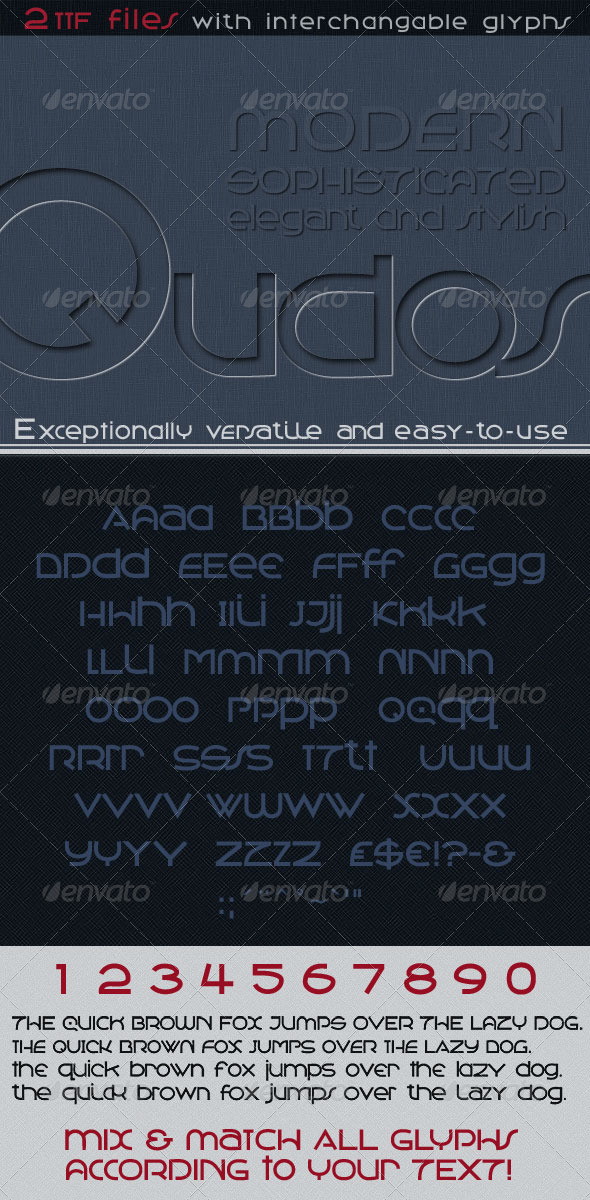
Qudos: Clean & Modern, Avant Garde Type
EXCLUSIVE to Graphic River ; 2 x .ttf files that work together by exchanging any of the upper and lower case letters. Qudos CAPS and Qudos Alternate – a very clean and modern, sophisticated font useful for any project where you want elegance with a slightly uncommon style. You can substitute any of the 4 glyph choices of each glyph to get a unique artistic result. Fine tune your point size and spacing to join or separate specific characters. The preview can give only a limited idea of the many ways to combine the characters.